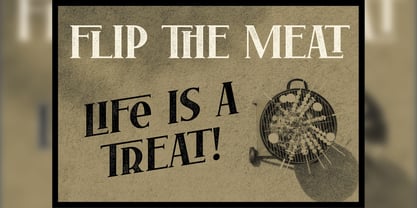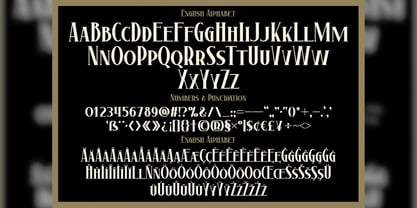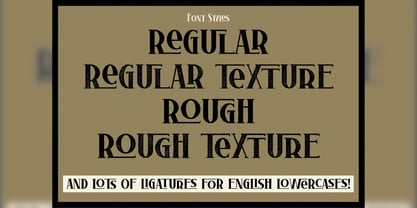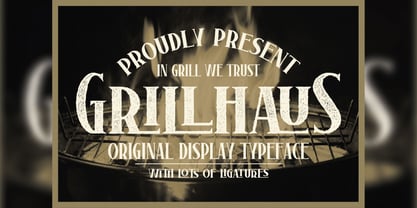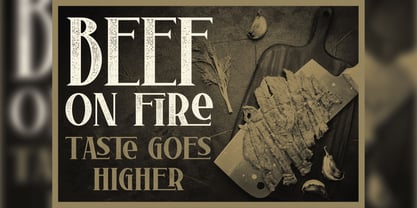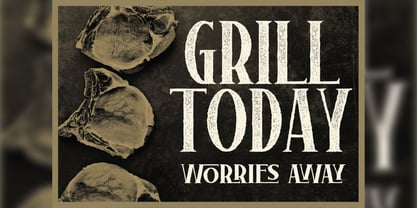
Grillhaus
by Vozzy
The Grillhaus Font Family was designed by Oleg Voznyy and published by Vozzy. Grillhaus contains 4 styles and family package options. More about this family
Introducing the striking font "Grillhaus," designed specifically for headlines and accent inscriptions that demand attention. This unique typeface features a comprehensive set of additional characters, punctuation marks, and multilingual options, making it versatile for various design needs. With a rich array of standard ligatures, ensure your software supports these OpenType features to fully utilize its capabilities. "Grillhaus" is perfect for branding, web design, and editorial projects, adding a distinctive flair to your beautiful designs!
Designers: Oleg Voznyy
Foundry: Vozzy